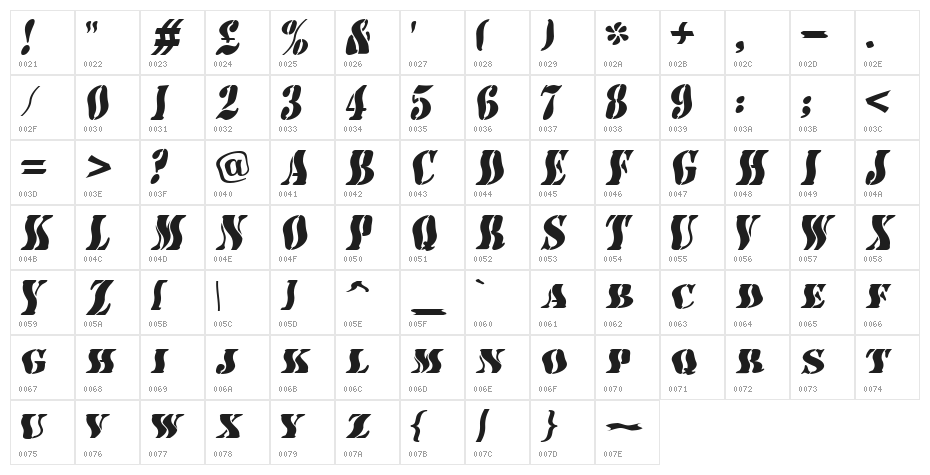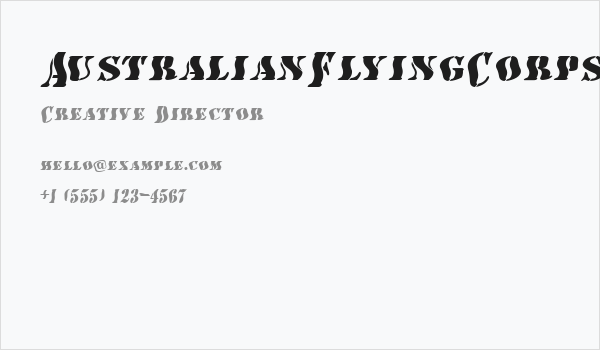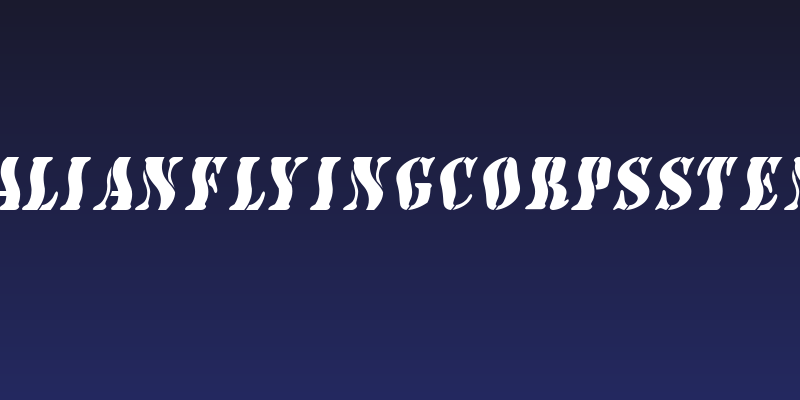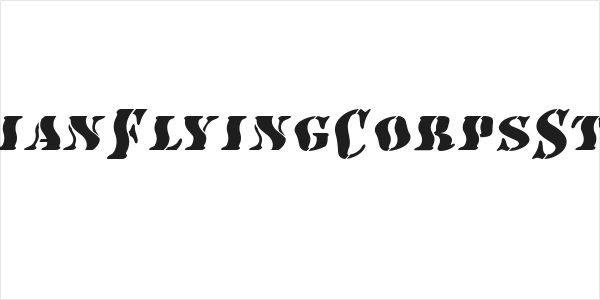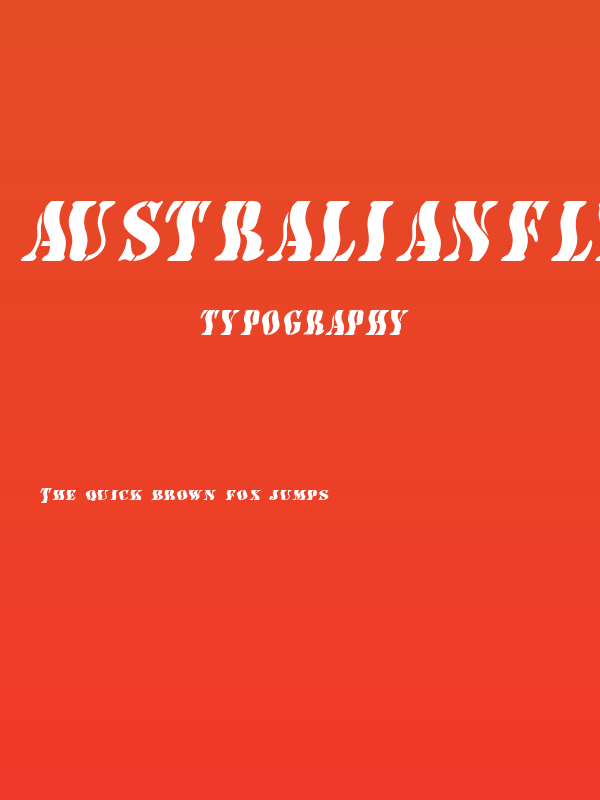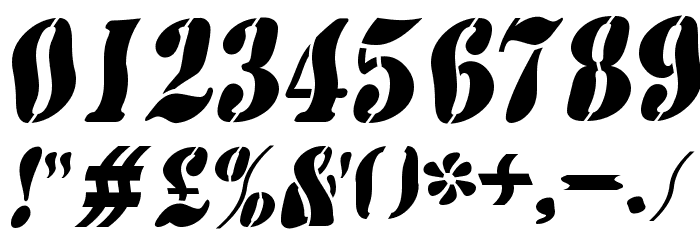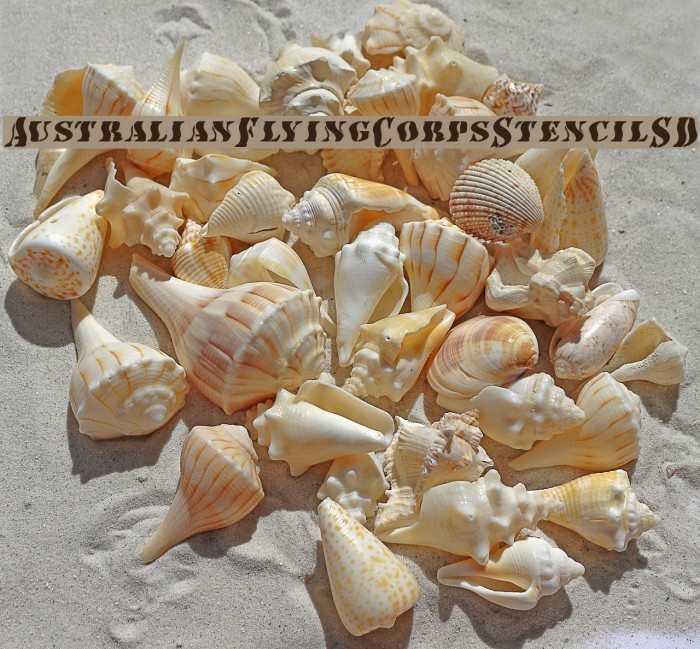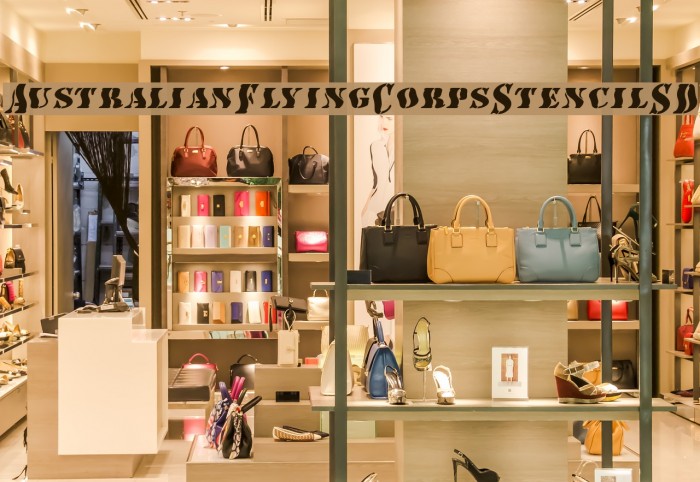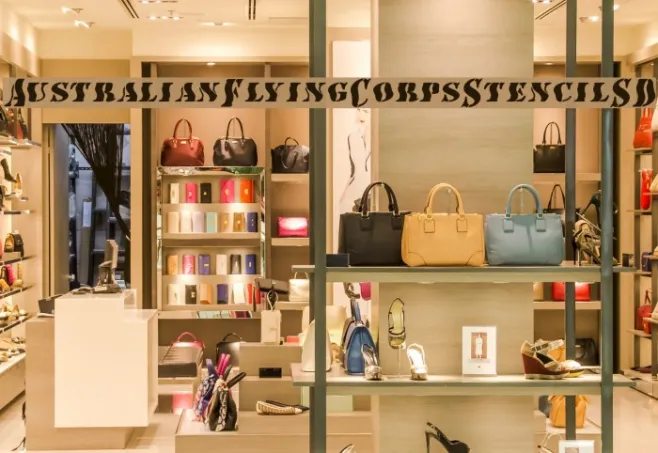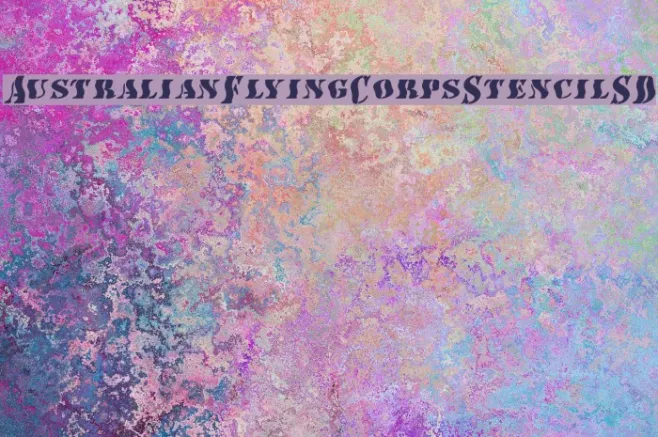
AustralianFlyingCorpsStencilSD Font
AustralianFlyingCorpsStencilSD Description
This font features a bold, stencil-like design with a distinct military aesthetic. The characters are robust and impactful, with sharp edges and cut-out sections that create a sense of movement and urgency. The uppercase letters are particularly striking, with a strong presence that commands attention. The numbers and special characters maintain the same bold style, ensuring consistency across all elements. This font is ideal for projects that require a strong, authoritative look, such as military-themed designs, posters, or branding that needs to convey strength and reliability.
| Proposed Projects | Ideal for military-themed designs, posters, branding, and any project requiring a strong, authoritative look. |